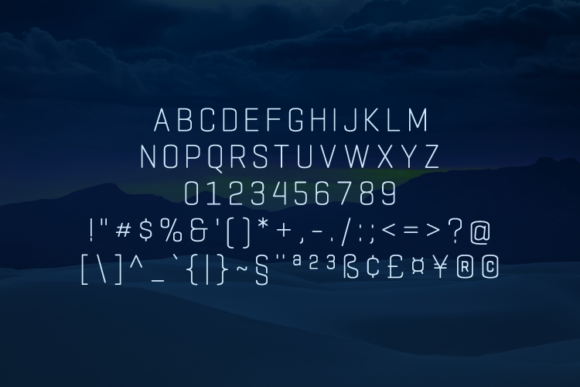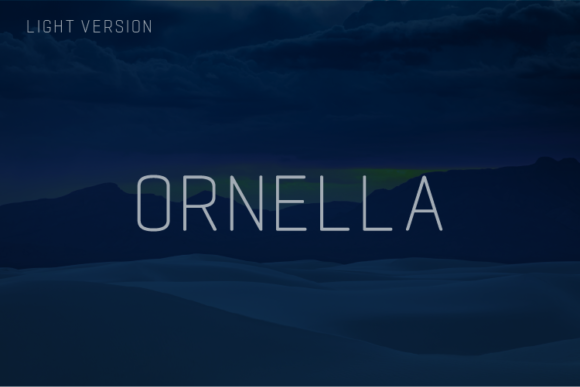
Introduction to Ornella Light Font
Ornella is a sans serif type family with a friendly and synergetic profile.
Designed with rounded forms, low contrast, and a distinctive techie feel, Ornella is a highly legible typeface suited for any text application and typographic reproduction .
Key Features of Ornella Light Font
Why Choose Ornella Light Font?